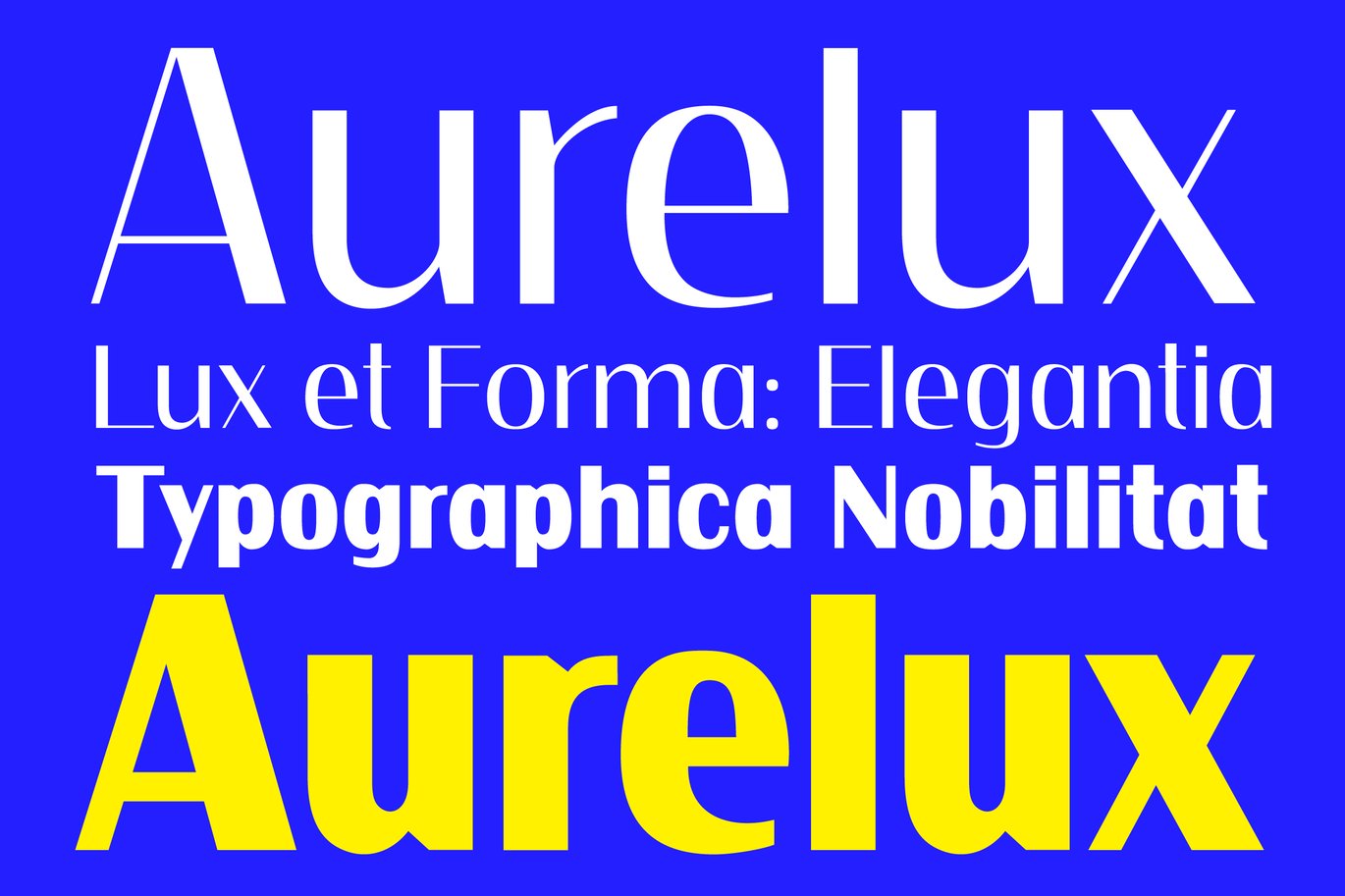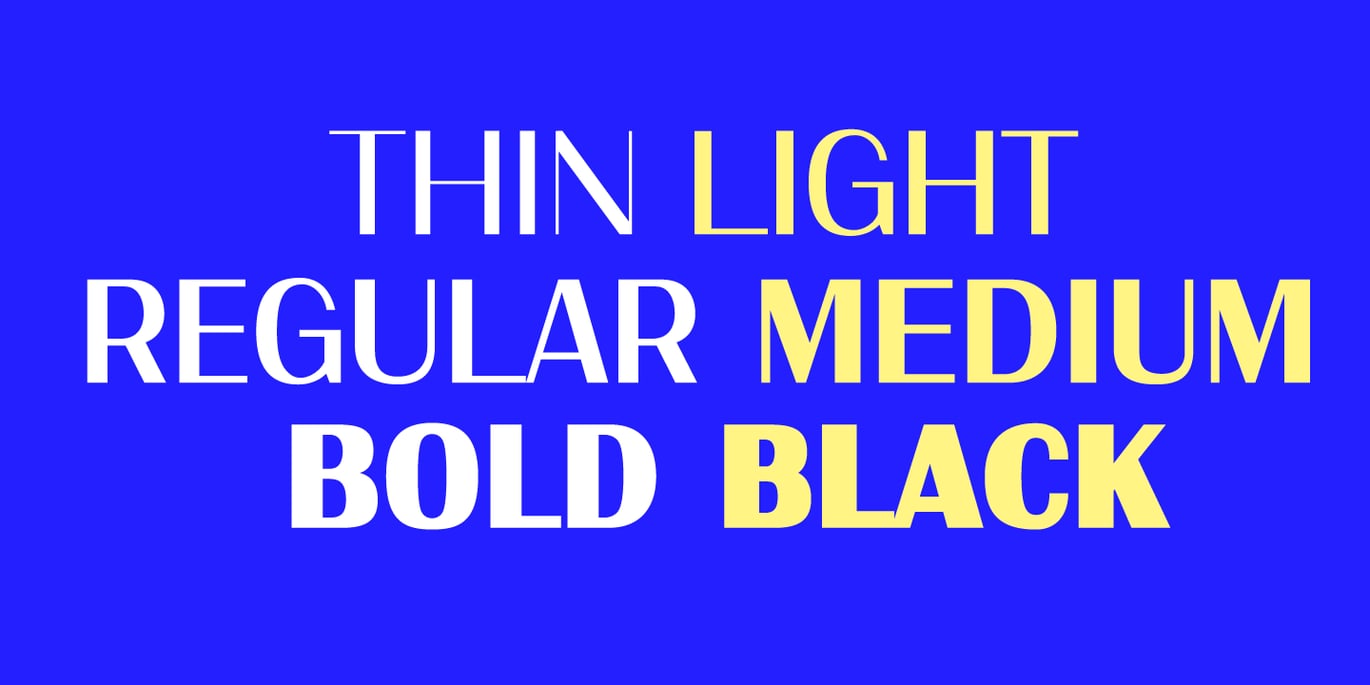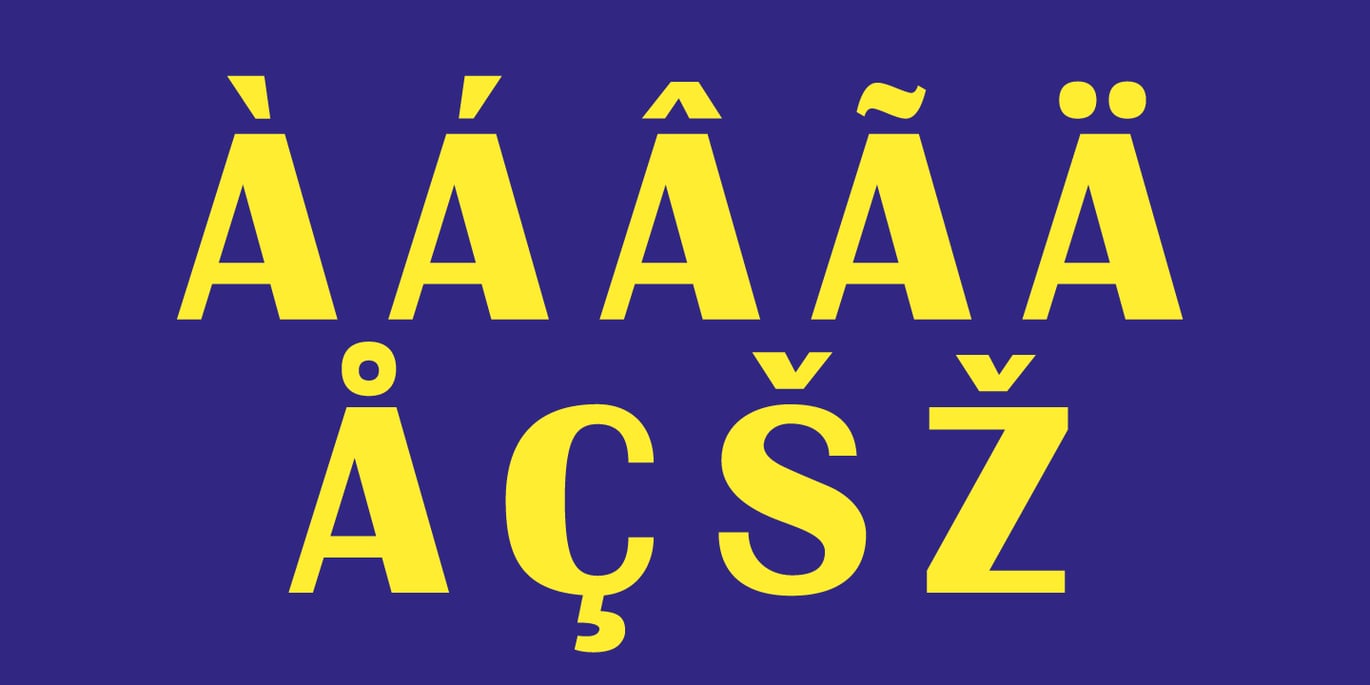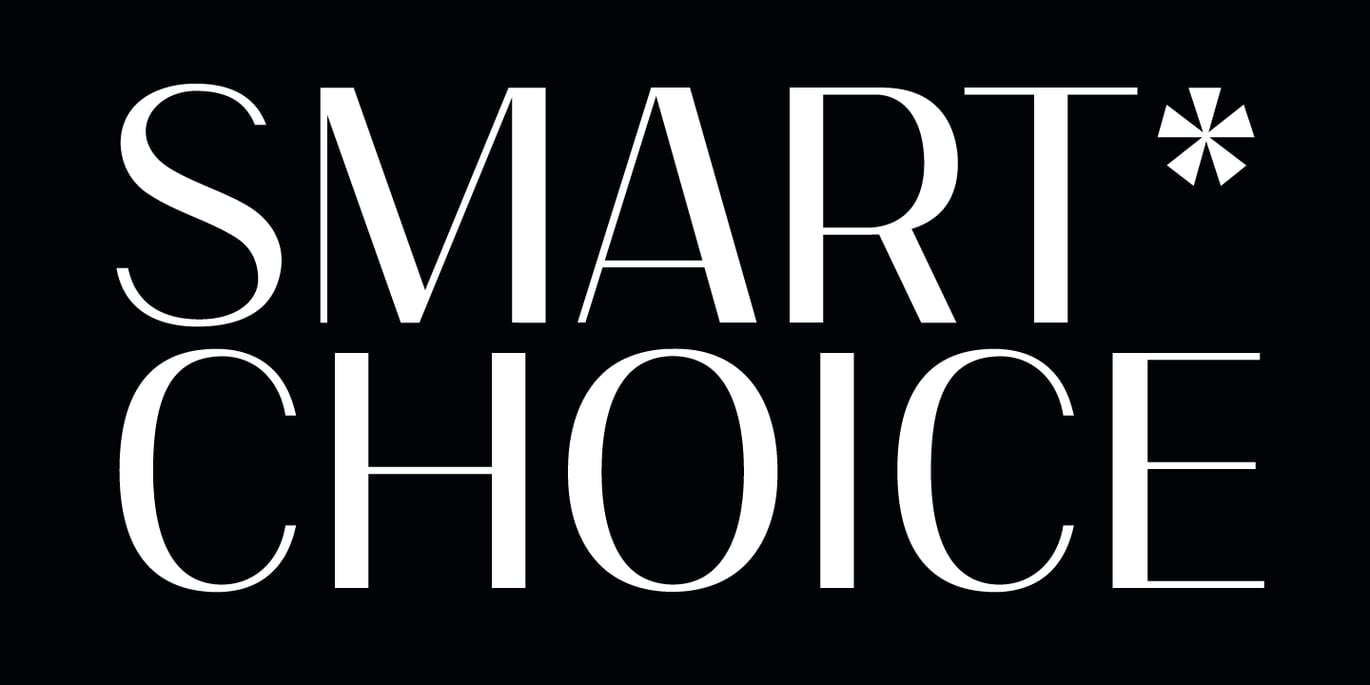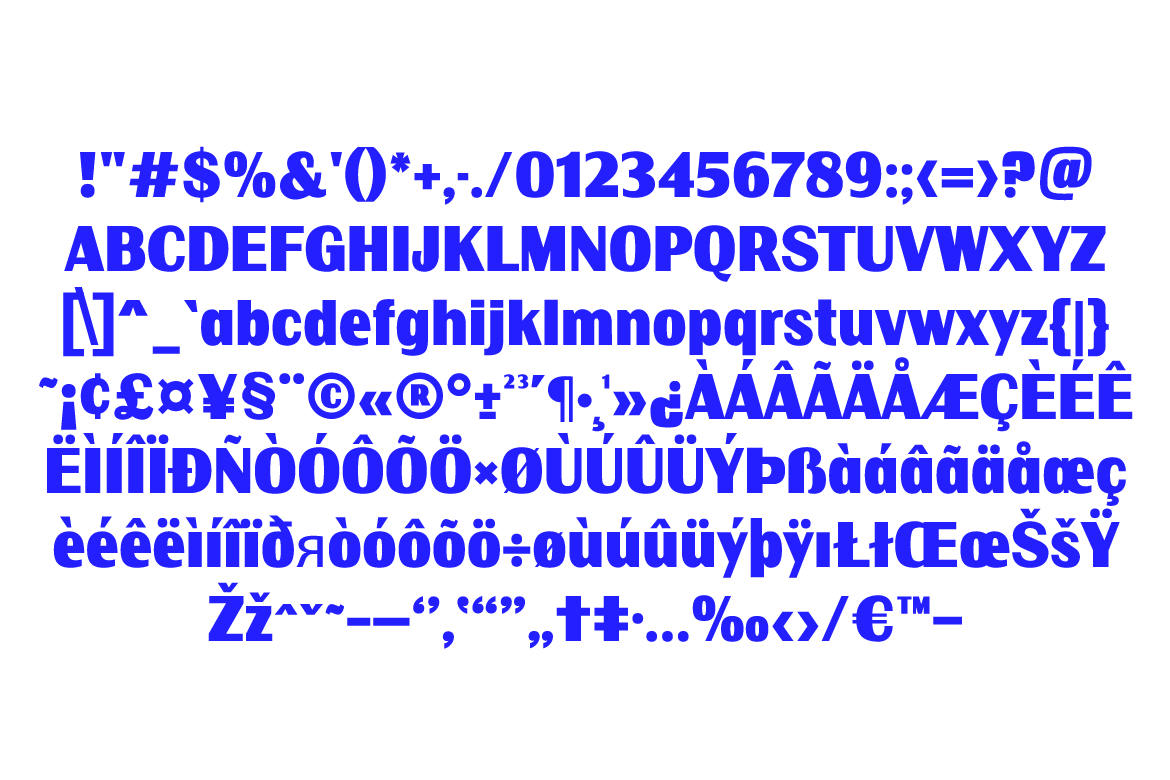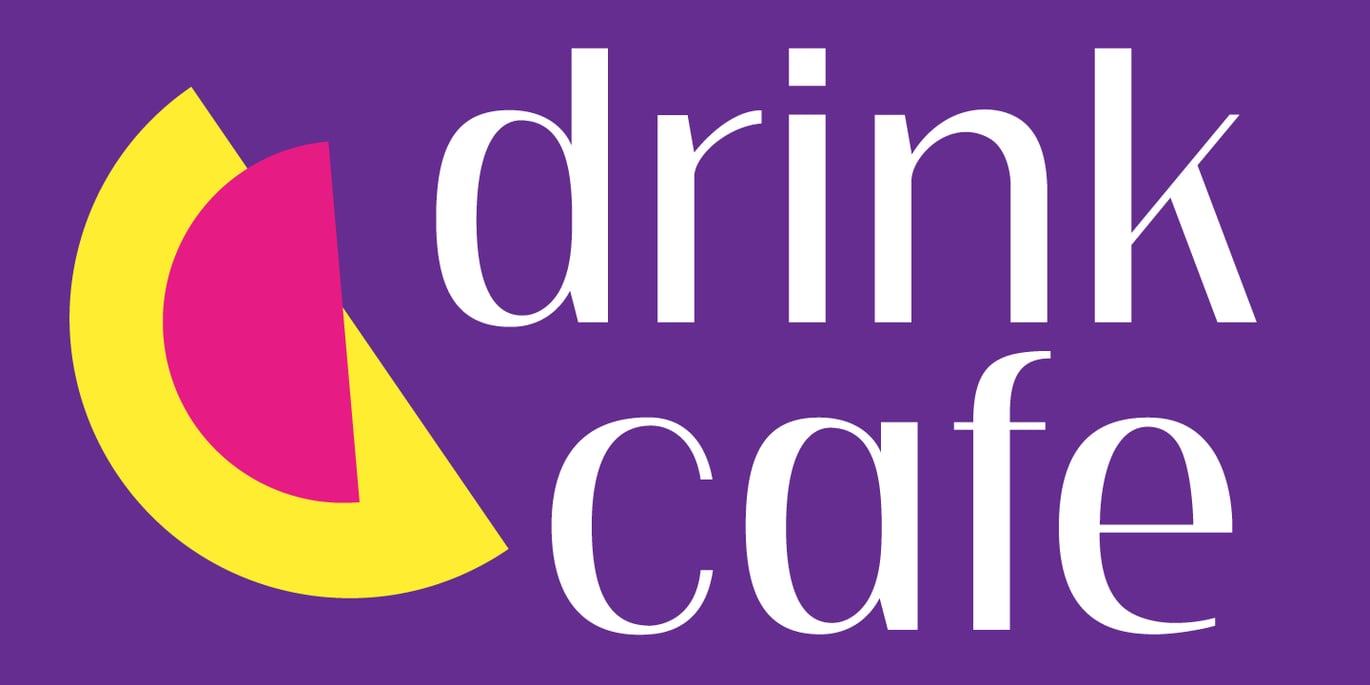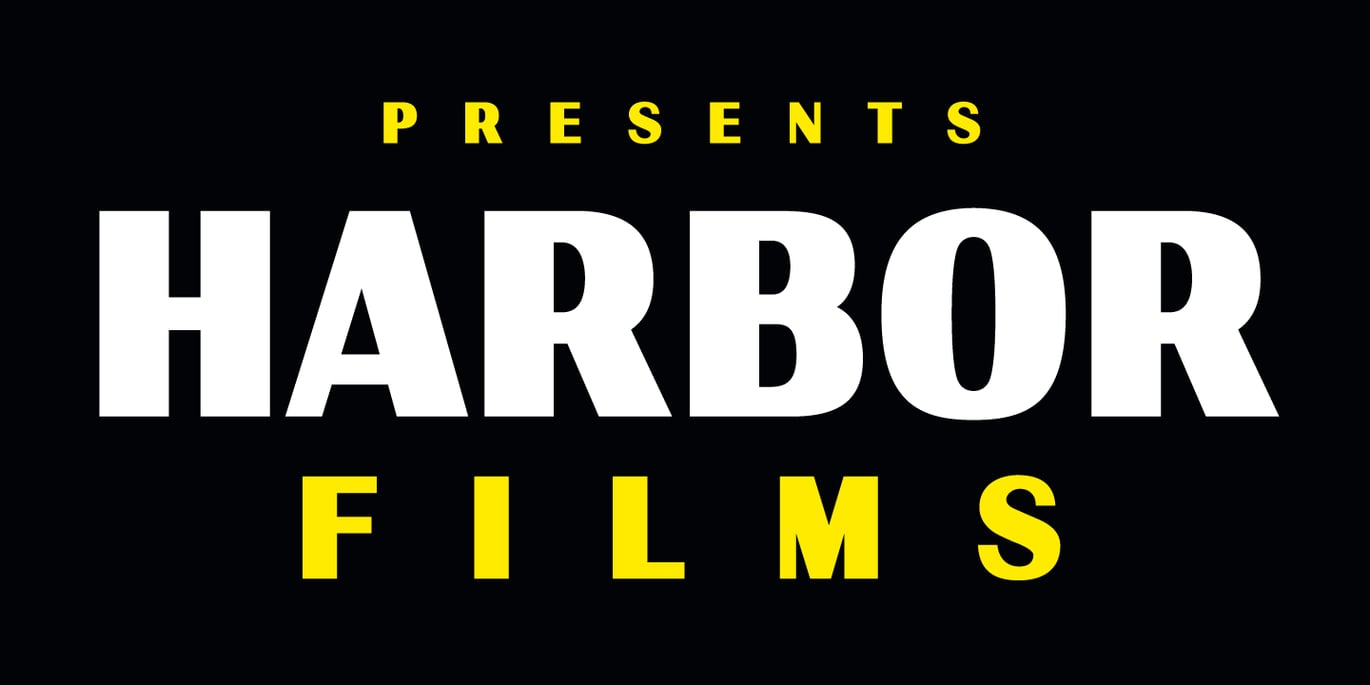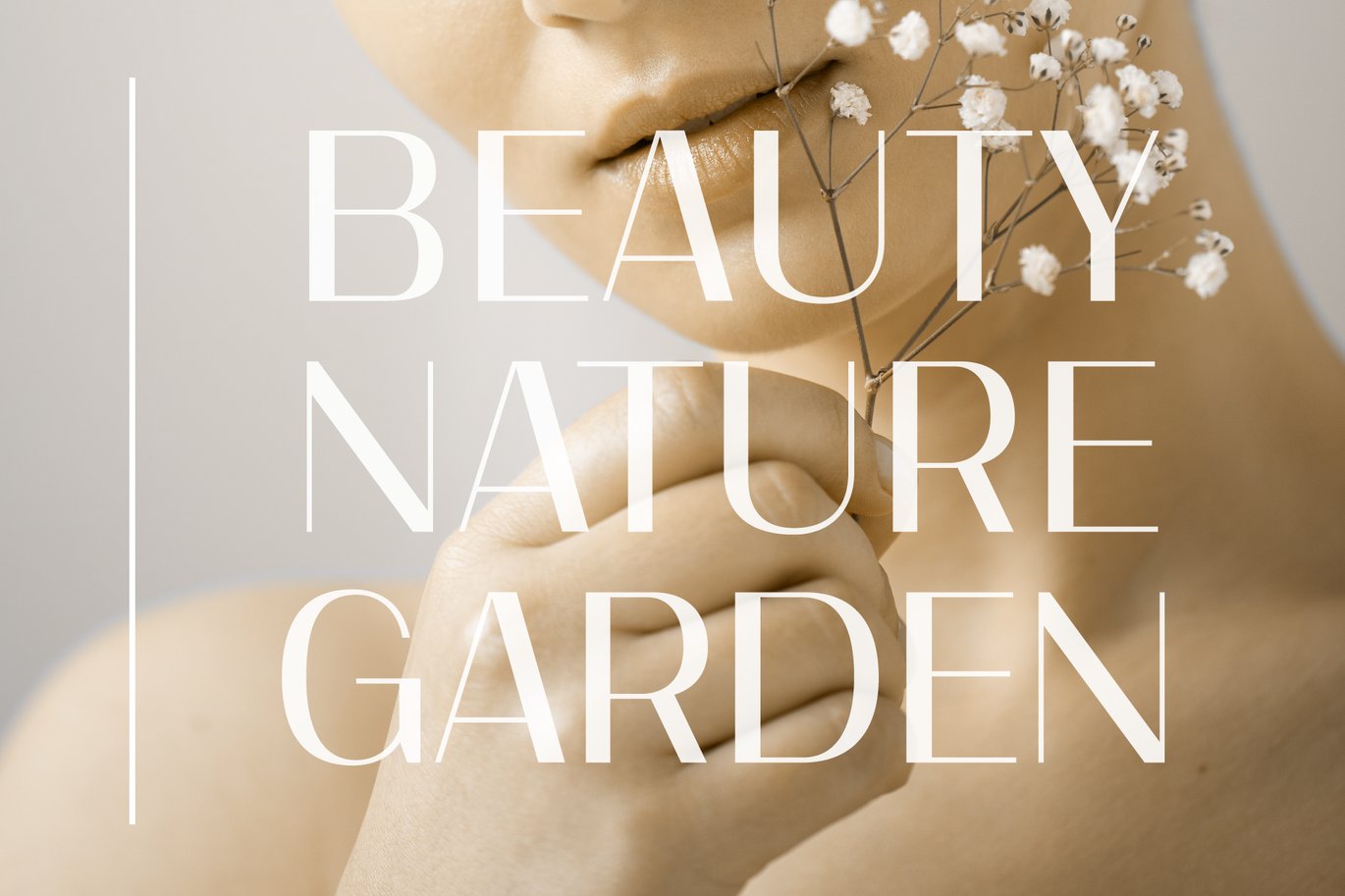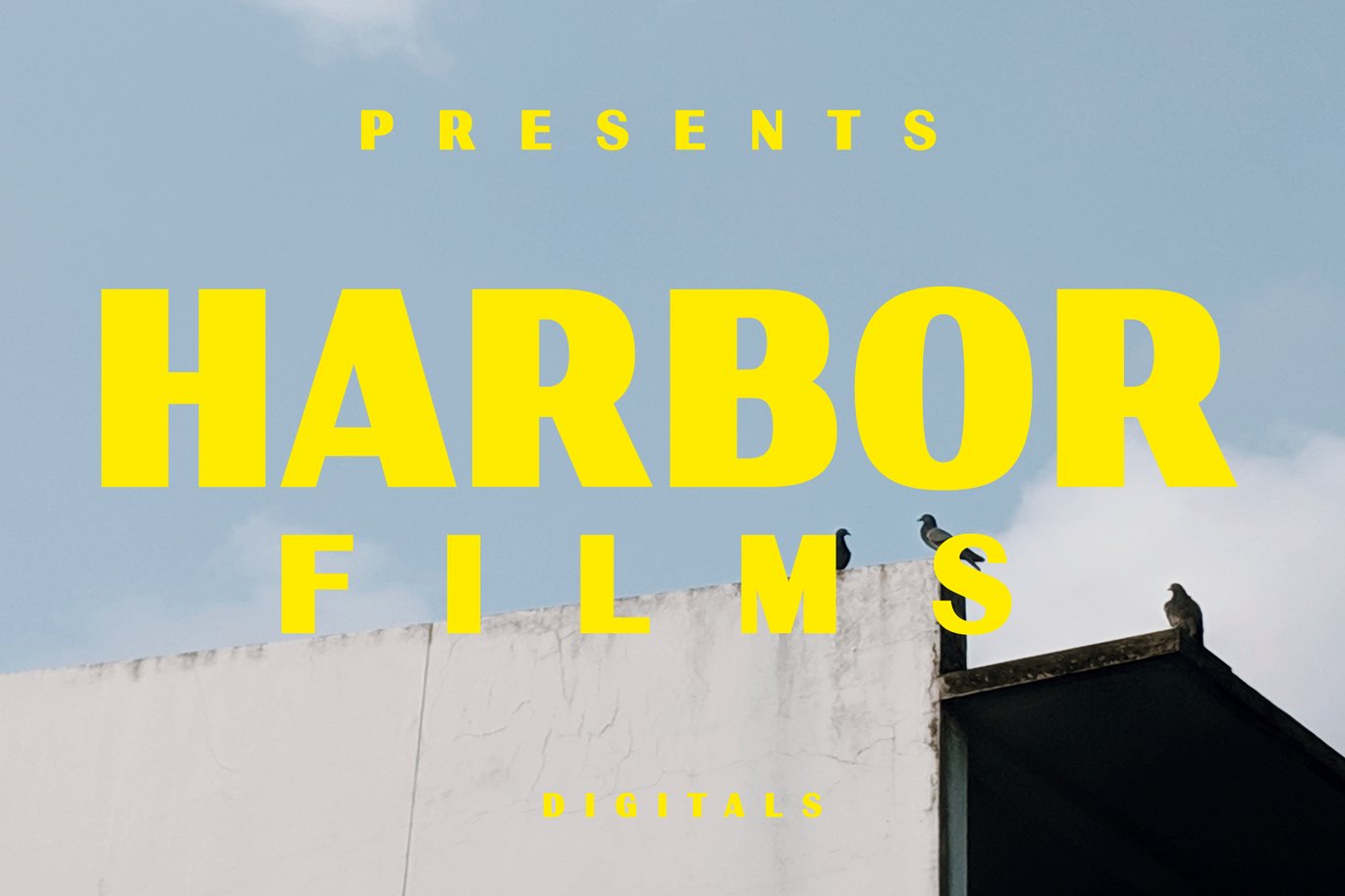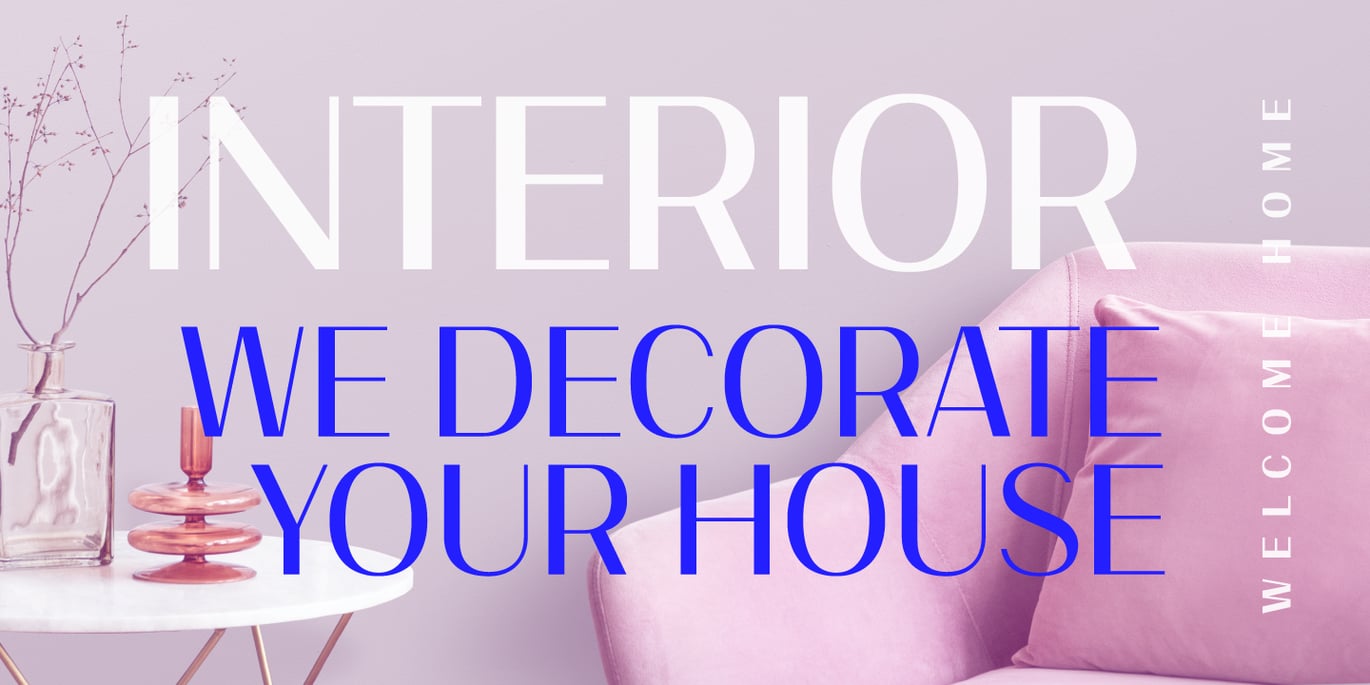
Aurelux Modern, Luxury Sans Font
Aurelux: A modern, luxury sans-serif font designed for sophistication and elegance. Its clean lines and refined design exude sophistication, making it the perfect choice for upscale brands and diverse design applications. Elevate your projects with the chic and versatile aesthetic of Aurelux. Explore various weights and styles to customize your visual presentation.
6 styles: Thin, Light, Regular, Medium, Bold, Black. OTF format.